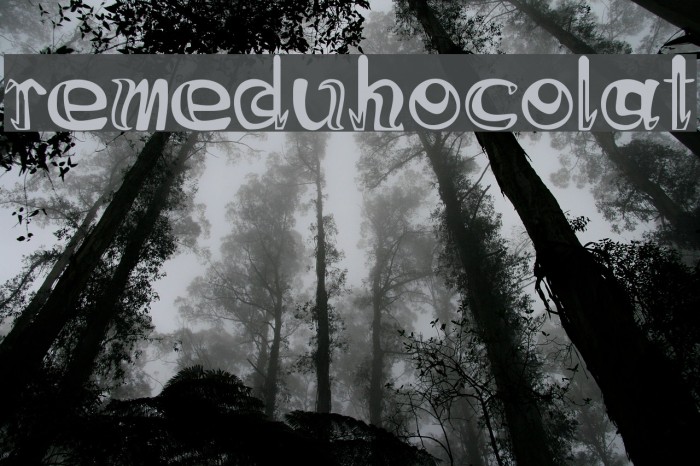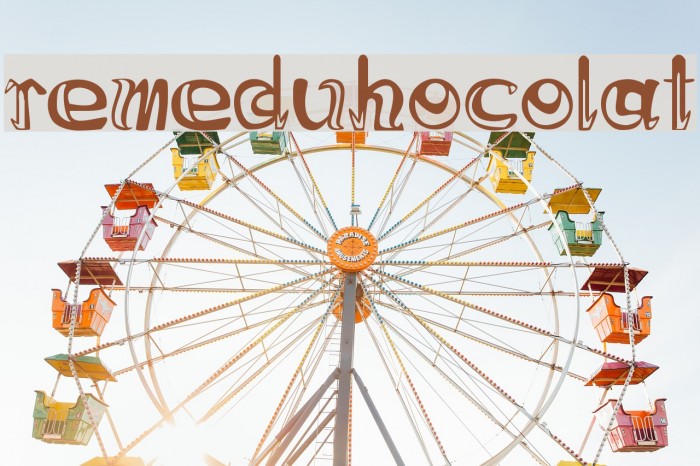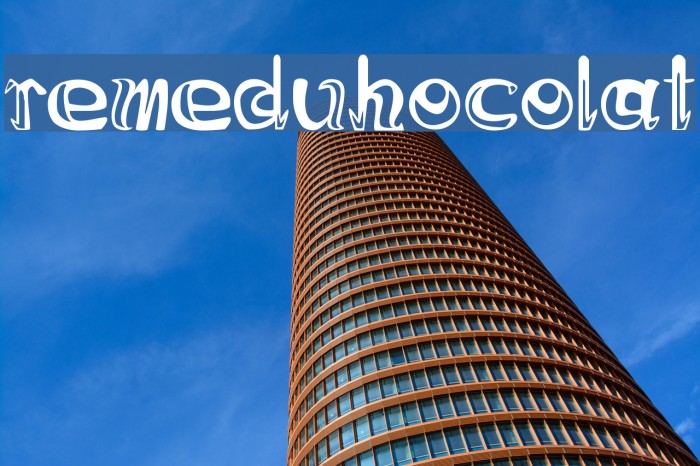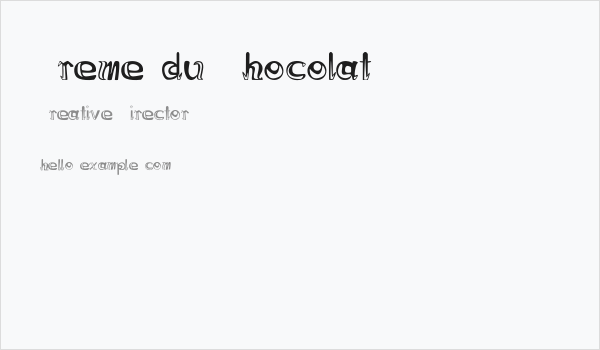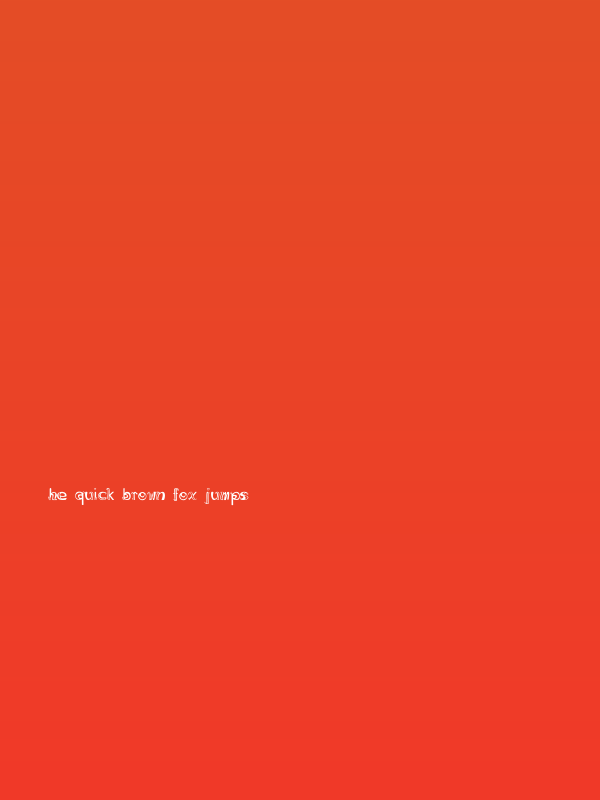
Creme du Chocolat Font
Creme du Chocolat Description
This font features a playful and whimsical design with a unique blend of curves and sharp edges. Each character exhibits a distinct personality, with exaggerated serifs and varying stroke widths that create a dynamic visual rhythm. The lowercase letters maintain a consistent baseline, while the overall style is reminiscent of hand-drawn or illustrative typefaces. The font's decorative elements make it stand out, offering a sense of creativity and artistic flair. Its bold presence and intricate details make it suitable for eye-catching designs where individuality and expression are key.
Proposed ProjectsIdeal for creative projects such as children's books, playful branding, artistic posters, and unique invitations.